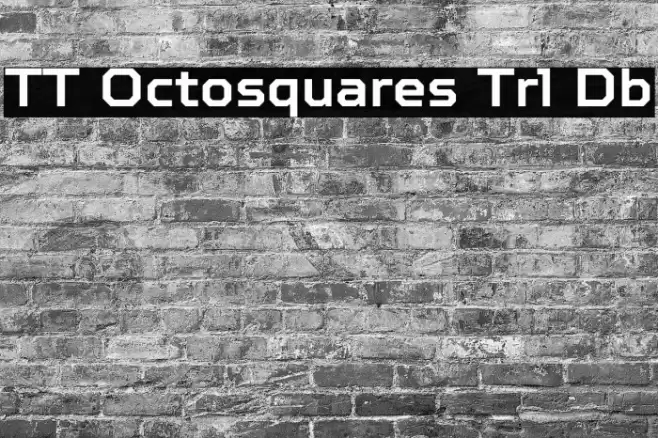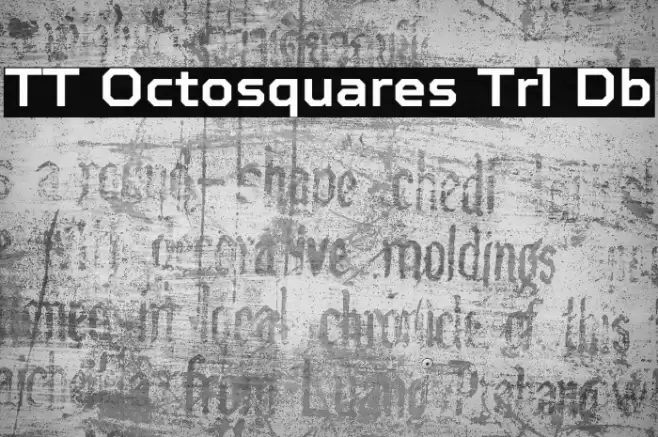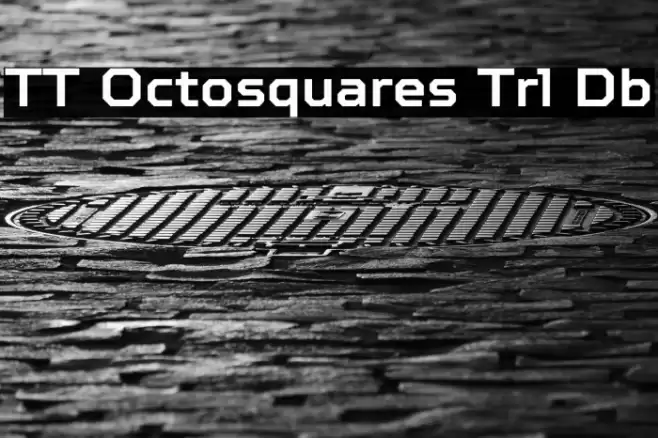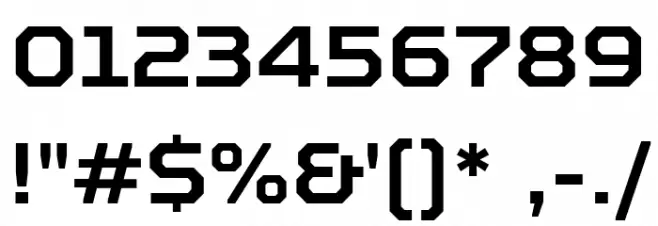
TT Octosquares Trl Db Font
TT Octosquares Trl Db Description
This font features a geometric and modern design with a strong emphasis on angular shapes and clean lines. The characters are constructed with a consistent thickness, giving them a bold and structured appearance. The uppercase and lowercase letters maintain a uniform height, contributing to a cohesive and balanced look. The numerals and special characters are designed to match the overall style, ensuring visual harmony across all elements. The font's distinct style makes it suitable for projects that require a contemporary and tech-savvy aesthetic.
A geometric and modern font with angular shapes and clean lines from Uncategorized fonts.
- Proposed Projects: Ideal for technology branding, modern web design, and digital interfaces.
- Use Case: Headlines, Logos, Digital interfaces